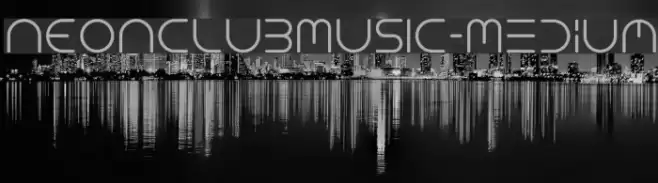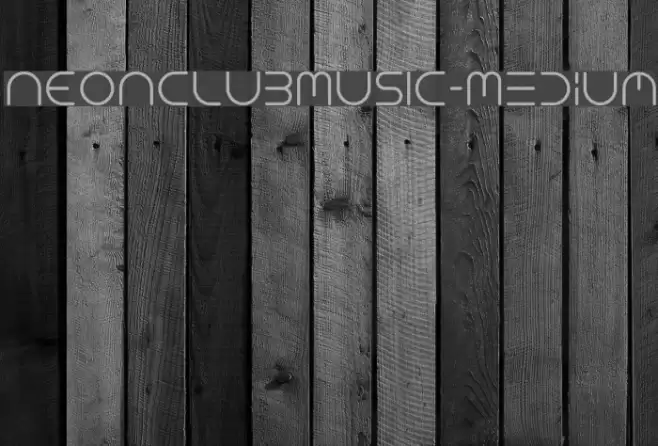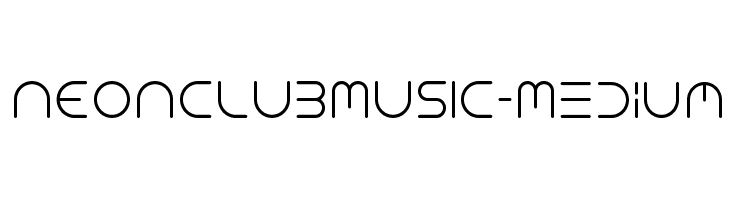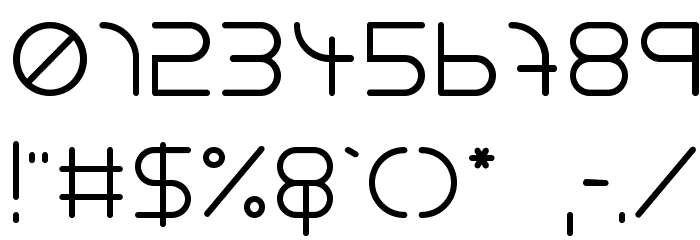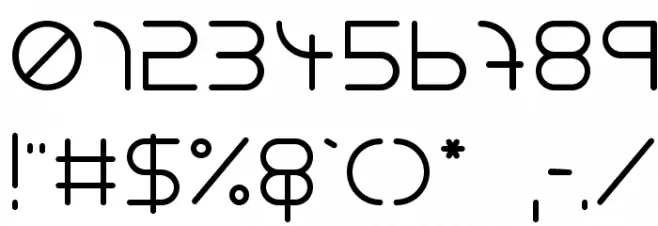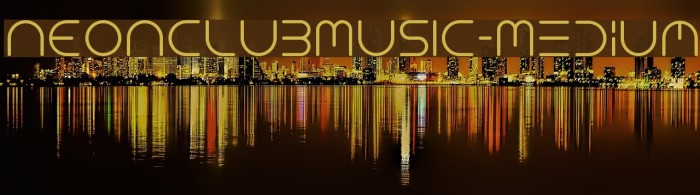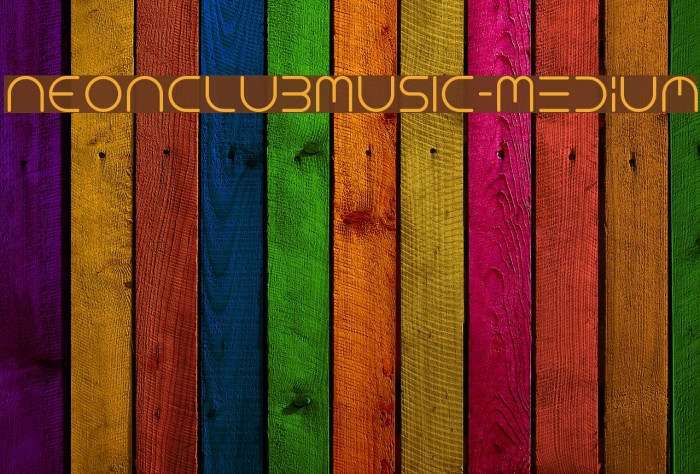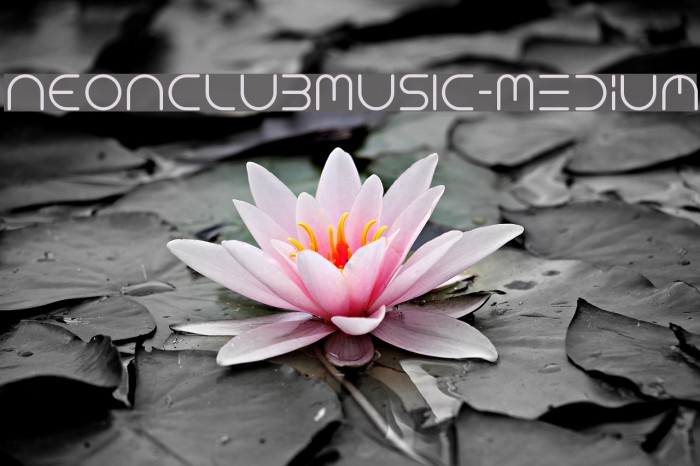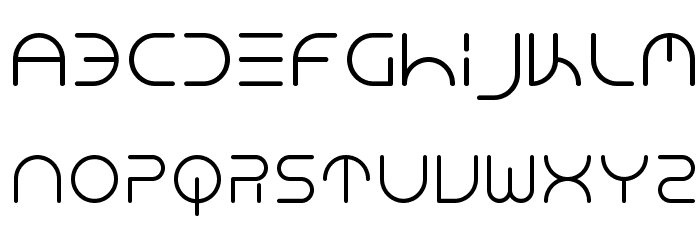
NEONCLUBMUSIC-Medium Font
NEONCLUBMUSIC-Medium Description
This font features a sleek, modern design with rounded edges and a futuristic aesthetic. The characters are composed of smooth, continuous lines that create a sense of fluidity and movement. The uppercase and lowercase letters maintain a consistent style, with a geometric structure that emphasizes simplicity and clarity. The numbers and special characters follow the same design principles, ensuring a cohesive look across all elements. This font is ideal for projects that require a contemporary and innovative feel, such as digital interfaces, tech branding, or modern advertising.
A modern, rounded font with a futuristic and fluid design from Uncategorized fonts.
- Proposed Projects: Ideal for digital interfaces, tech branding, modern advertising, and futuristic design projects.
- Overall Style: Modern, Futuristic
- Use Case: Headlines, Logos, Digital Interfaces